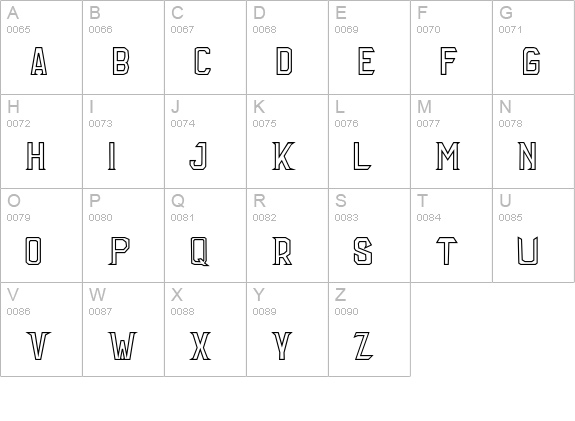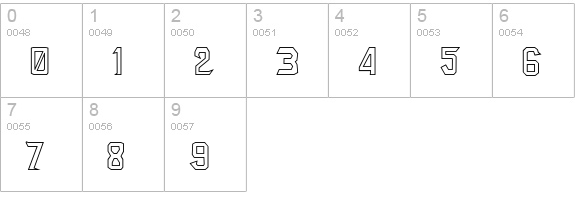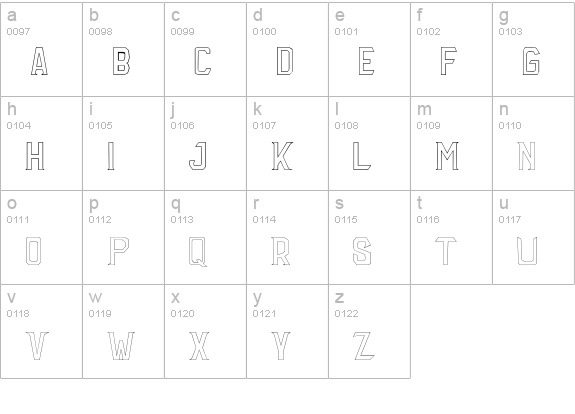
Mirnah Outline Font Details
Mirnah Outline is a modern and stylish font that exudes elegance and sophistication. With its clean lines and sleek design, this typeface is perfect for adding a touch of class to any project. The outline style gives it a unique and contemporary look that is sure to make a statement.
What sets Mirnah Outline apart is not only its visually appealing aesthetics but also its versatility. Whether you're designing a logo, creating a poster, or crafting a website, this font will elevate your work to the next level.